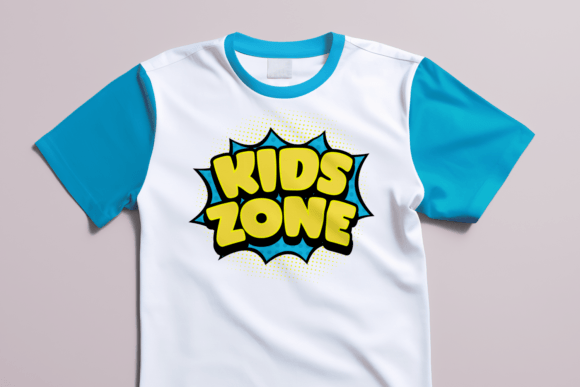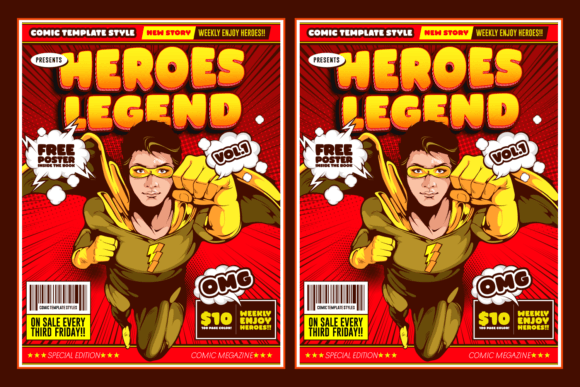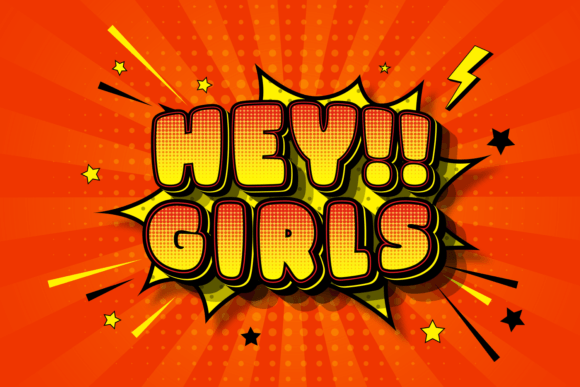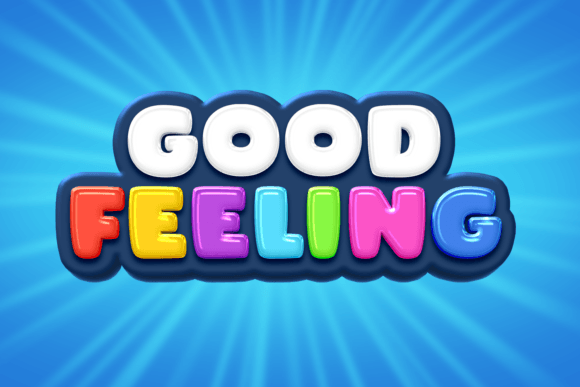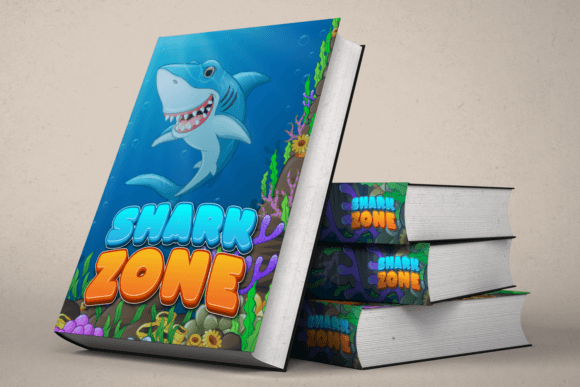
Introduction to Ouch Sorry Font
Ouch Sorry is a cute cartoon display font.
The thickness of the characters makes it perfect for headlines, titles, book covers, advertising materials, t-shirts, and more Bring your creative ideas to life with this chubby typeface.
Key Features of Ouch Sorry Font